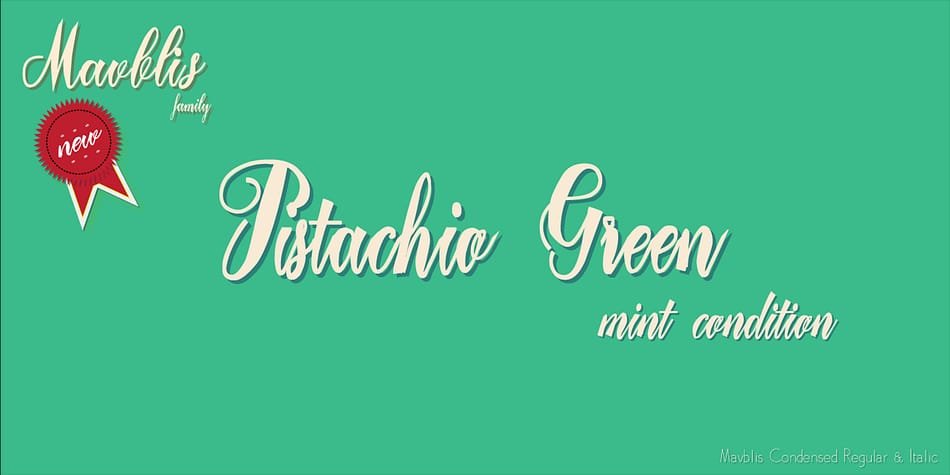
Mavblis Font is an enchanting script font family meticulously crafted and published by Aga Silva Fonts. Renowned for its playful and fancy aesthetic, it stands out as a versatile typeface that lends a distinctive charm to various design projects. With a total of six styles, this font family offers a diverse range of options to cater to different design preferences and applications.
This delightful font boasts an attractive brush and handmade aesthetic. With a rich character set comprising 100 custom characters, it enhances the flexibility and legibility of all designs.
Mavblis texture is a script font that finds its place in various design contexts. Its whimsical and elegant appearance makes it suitable for a broad spectrum of projects, including branding, packaging, invitations, posters, and more.
The font’s inherent personality can add a touch of creativity and flair to any design, making it particularly well-suited for projects that require a playful yet sophisticated feel. You can easily pair this stunning texture with Adreena Script Font and make eye-cathing projects.
What makes Mavblis Font suitable for branding?
Mavblis’ distinctive and playful aesthetic can enhance brand identity by providing a unique and memorable typographic style.
Does Mavblis Font support multiple languages?
Yes, It is often designed to support a wide range of languages, catering to diverse international audiences.
Are there any specific design recommendations for using Mavblis Font in logos?
It can work well in logos, especially for brands that aim to convey a sense of creativity, warmth, and approachability.
Can the different styles of Mavblis Font be mixed within a project?
Yes, designers have the flexibility to experiment and mix various styles of Mavblis within a project for added visual interest.
Is there a specific industry or niche where Mavblis is particularly popular?
This texture is versatile nature allows it to be embraced across various industries, but it may be trendy in creative fields such as design, fashion, and artisanal products.
Are there any specific design trends that Mavblis aligns with?
It may align well with contemporary design trends that emphasize a balance of sophistication and playfulness.